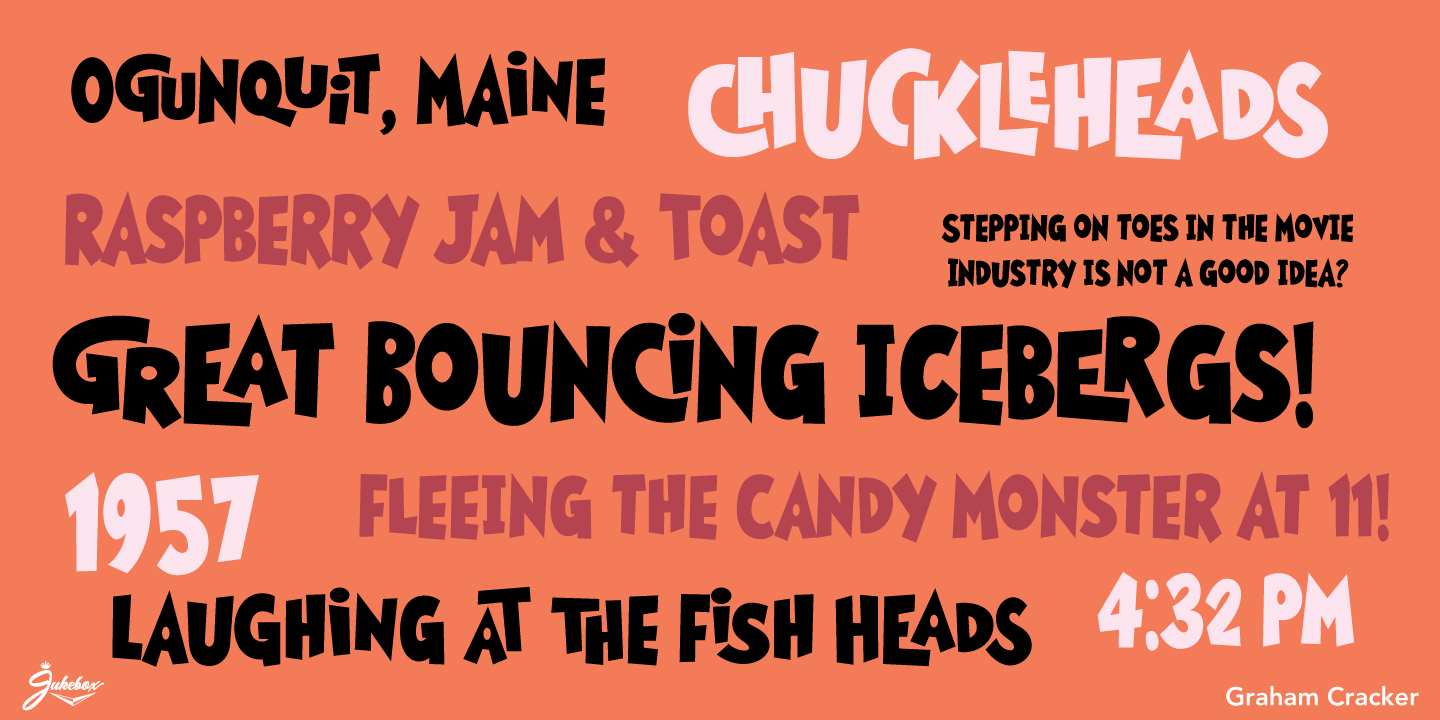
The Graham Cracker JF Font Free Download is an incredibly charming and delightfully rustic typeface, making it an excellent choice for designs that aim to convey warmth, homemade goodness, and a nostalgic, comforting feel. This inviting font is perfectly suited for bakery branding, artisan food packaging, farmers' market signage, children's book titles, countryside cafe menus, and holiday-themed promotions. Imagine it adding a wholesome touch to a gourmet cookie label, providing a friendly and legible feel for a local coffee shop, or giving a unique, wholesome vibe to a sustainable living website. Its soft, textured forms and distinctive, handcrafted appearance ensure your message is delivered with warmth and an undeniable sense of genuine appeal.
What makes Graham Cracker JF Font truly exciting is its ability to instantly infuse designs with a feeling of gentle comfort and heartfelt sincerity. It's not just a basic display font; it embodies an organic softness and a friendly character that makes it incredibly appealing. The slightly irregular forms and subtle textural elements give it an authentic, hand-drawn quality that feels personal and approachable. Designers will appreciate how easily it brings an unpretentious, comforting touch to any project, making it ideal for designs that need to feel friendly, engaging, and visually inspiring with a touch of tender elegance.
The Graham Cracker JF Font family typically offers a range of weights and styles to provide maximum flexibility for designers, allowing for various applications from headlines to body text. You can often find variations such as Light, Regular, Medium, and Bold, each providing a different level of visual impact for creating strong typographical hierarchies. Some versions might also include Italic styles, further enhancing its utility for emphasis and stylistic variation. These comprehensive options ensure that the Graham Cracker JF Font Free Download empowers designers to create truly charming, comfortable, and visually captivating designs that resonate with warmth and a sense of inviting simplicity.